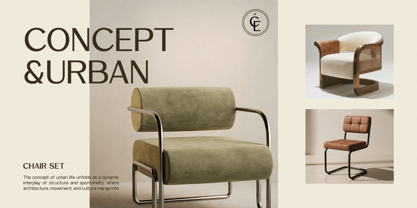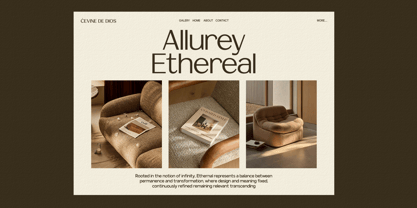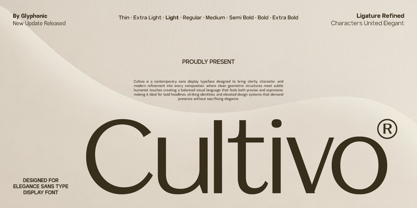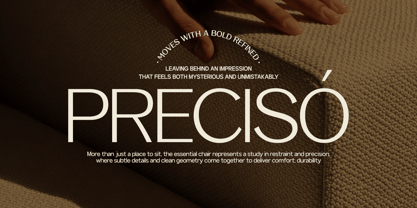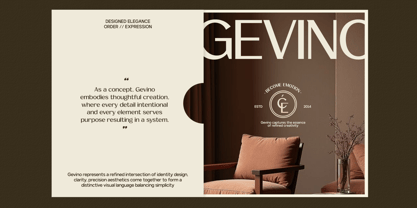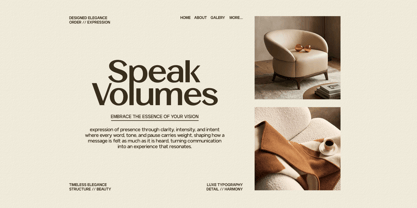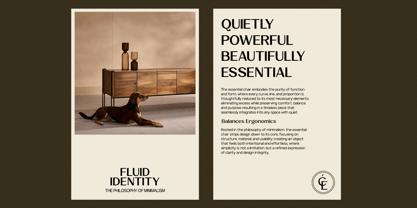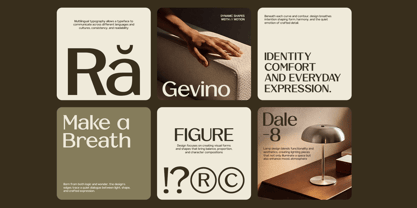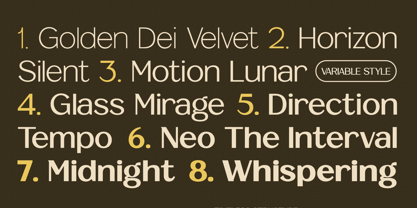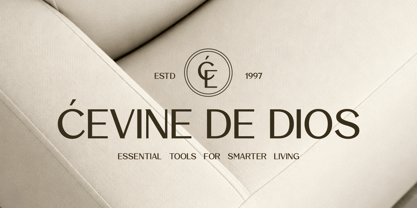
GC Cultivo
The GC Cultivo Font Family was designed by Muhammad Hafiizh Solana and published by Onyx Studio. GC Cultivo contains 8 styles and family package options. More about this family
GC Cultivo – Modern Elegant Sans is a contemporary sans display typeface designed to bring clarity, elegance, and refined modern character into every composition. Built with clean geometric structures and subtle humanist touches, GC Cultivo delivers a balanced typographic voice that feels both precise and expressive.
With its smooth curves, minimalist construction, and graceful proportions—as seen in its refined letterforms—**GC Cultivo** creates a sophisticated visual presence suited for modern branding and editorial design. The elegant sans structure combines simplicity with personality, making it ideal for bold headlines, luxury identities, fashion visuals, and elevated design systems.
Crafted for both digital and print environments, GC Cultivo maintains strong readability while preserving a sleek and contemporary appearance. Its multiple weight options allow designers to build flexible hierarchy, from light refined typography to bold statement compositions.
Enhanced with refined ligatures and balanced spacing, GC Cultivo blends modern clarity with timeless elegance, bringing harmony and sophistication into every layout.
Features:
- Modern Elegant Sans Construction
- 8 Weight Options (Thin – Extra Bold)
- Uppercase & Lowercase
- Numbers & Punctuation
- Refined Ligatures
- Clean Geometric Letterforms
- Multilingual Support (170+ Languages)
GC Cultivo — modern elegance shaped through clean form and refined expression.